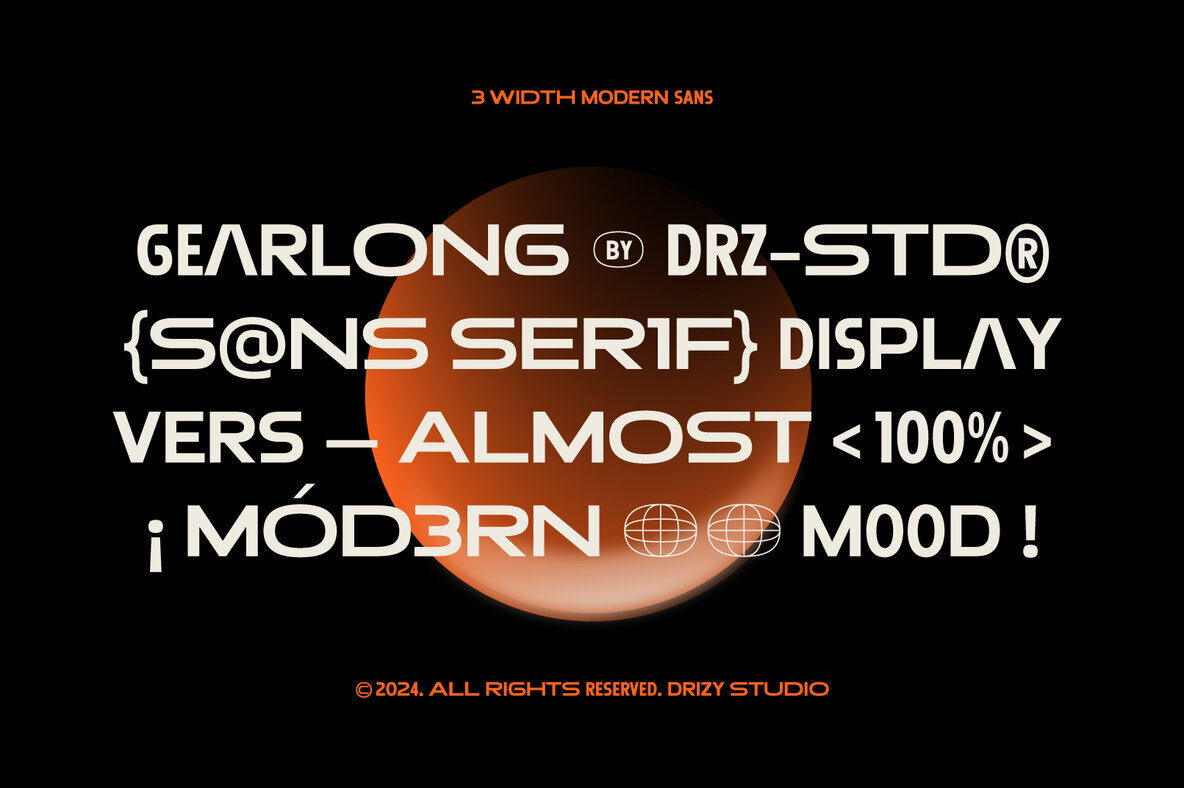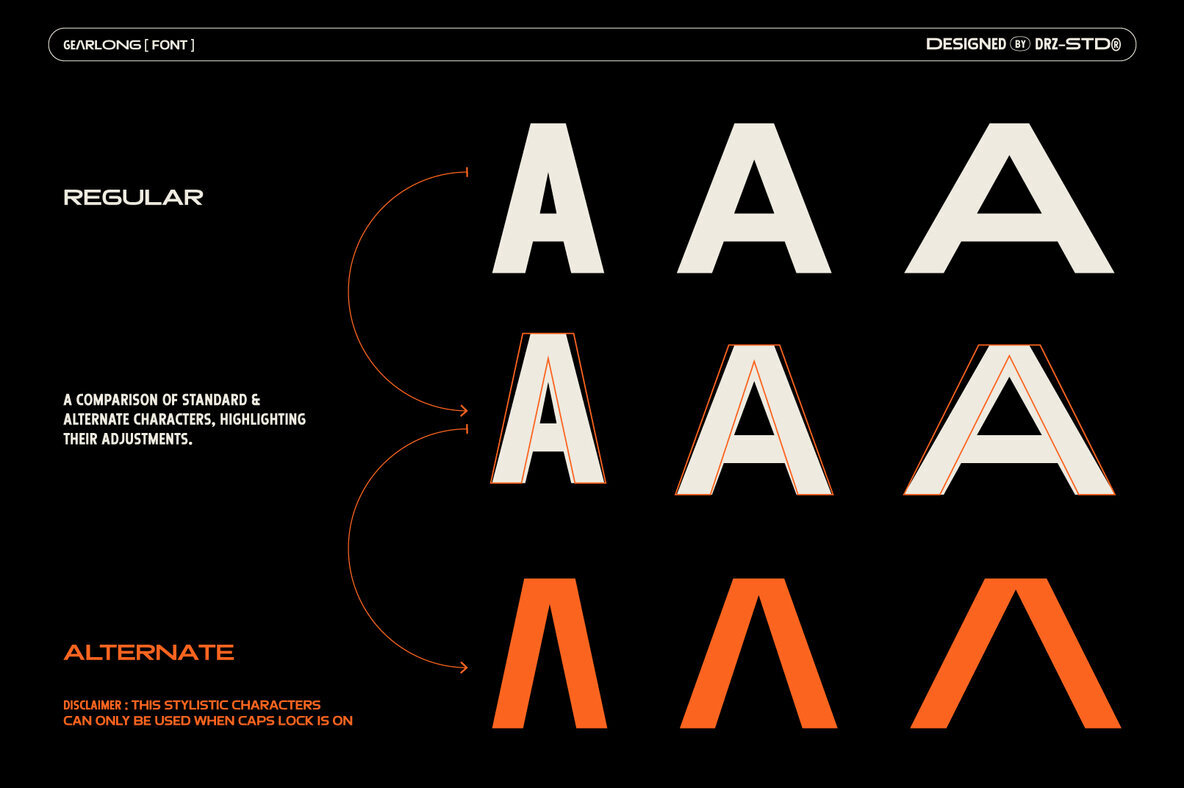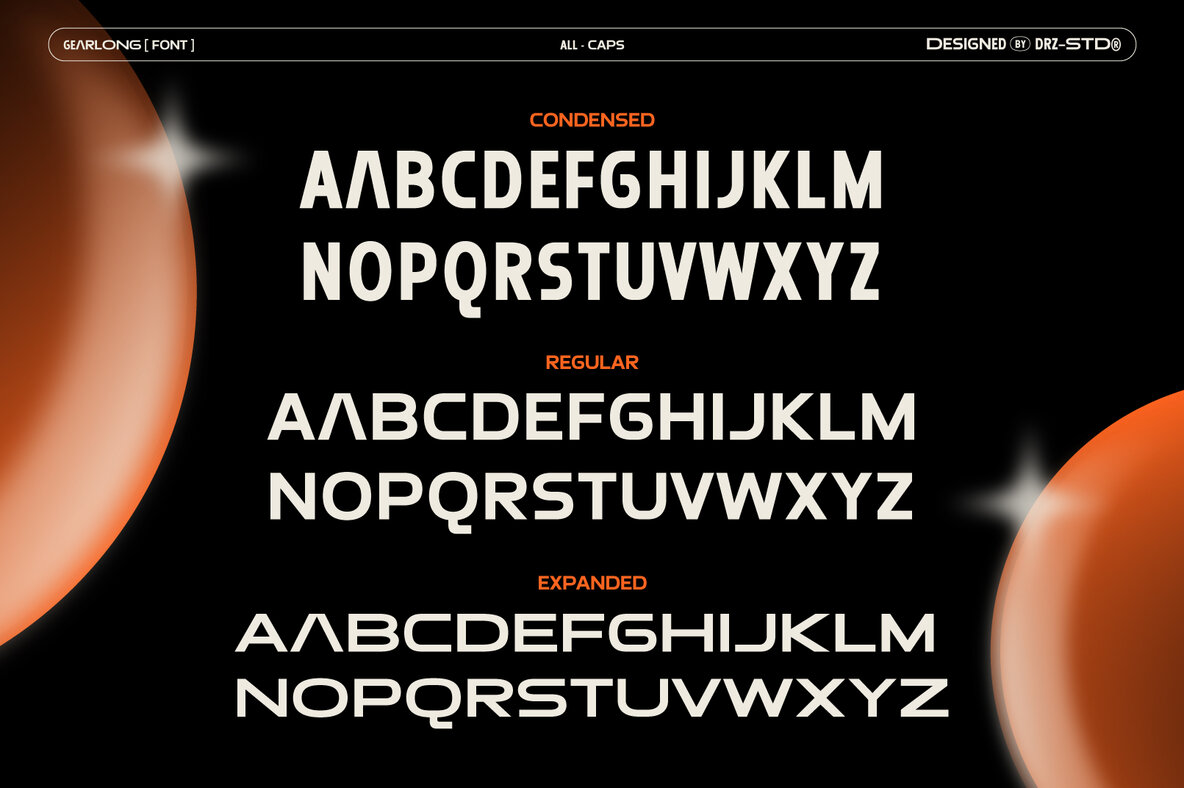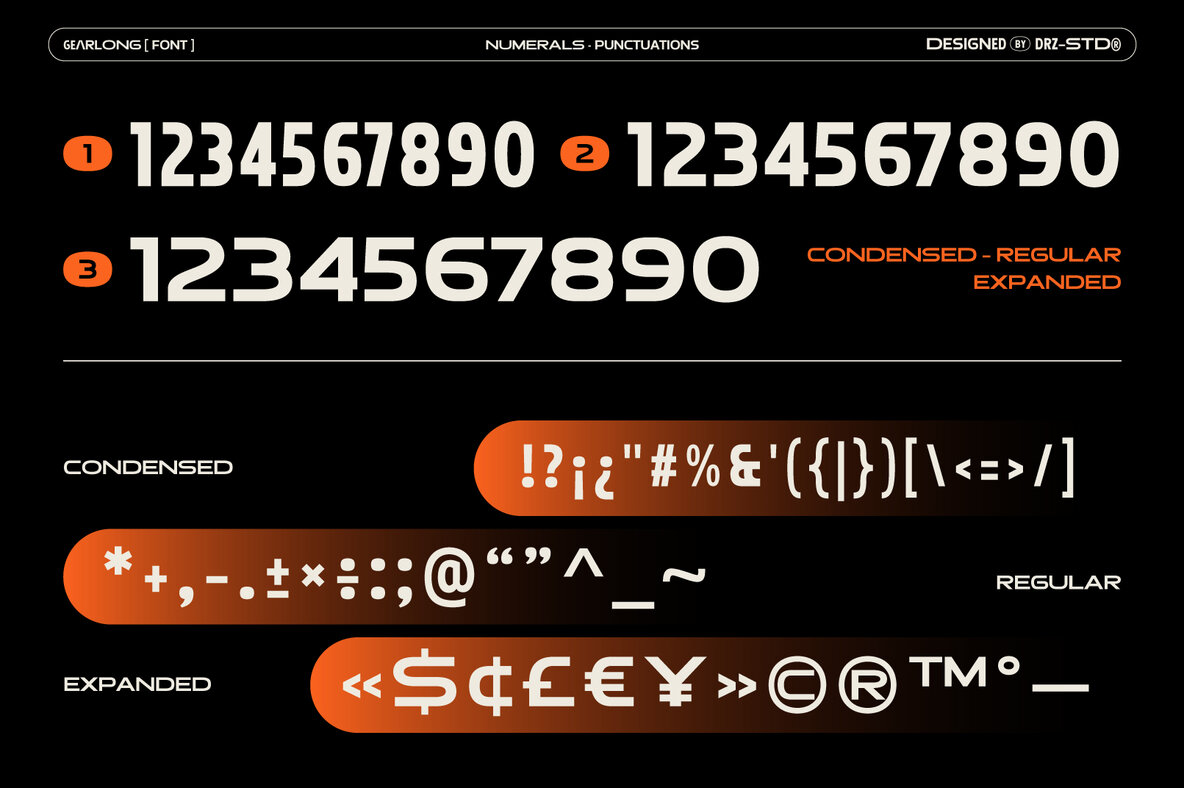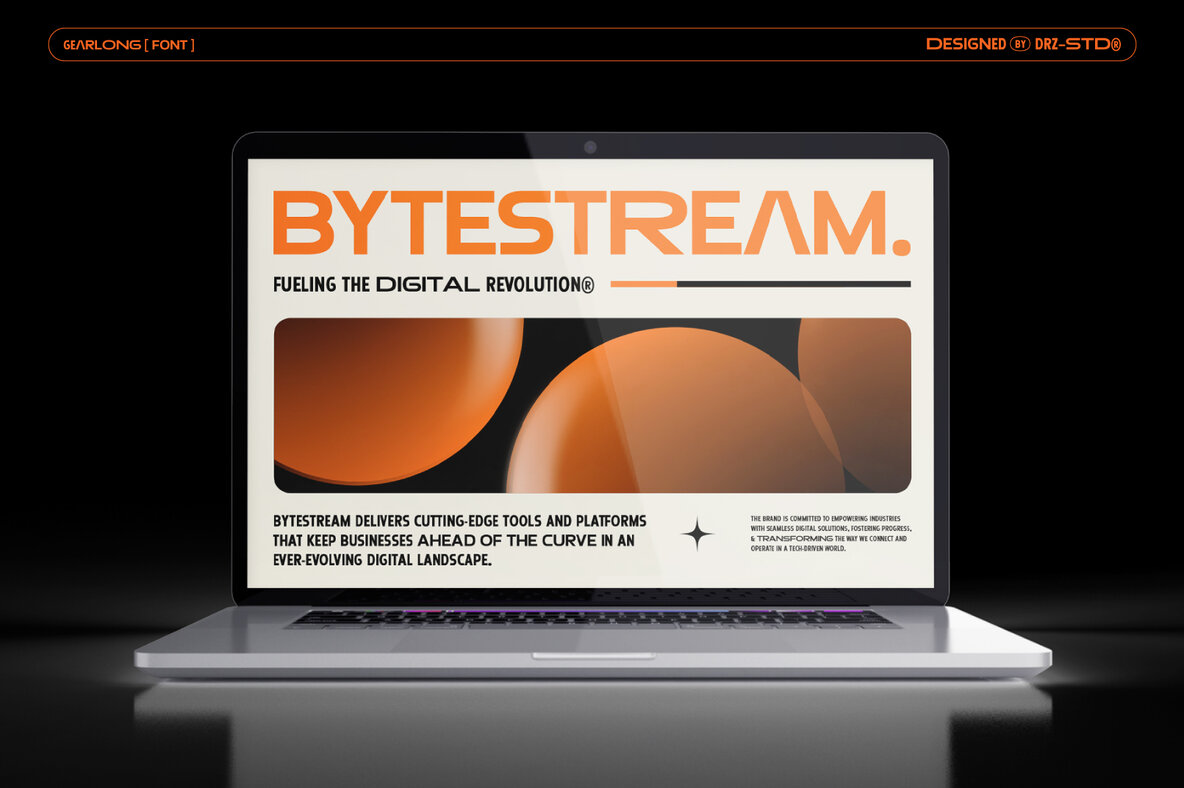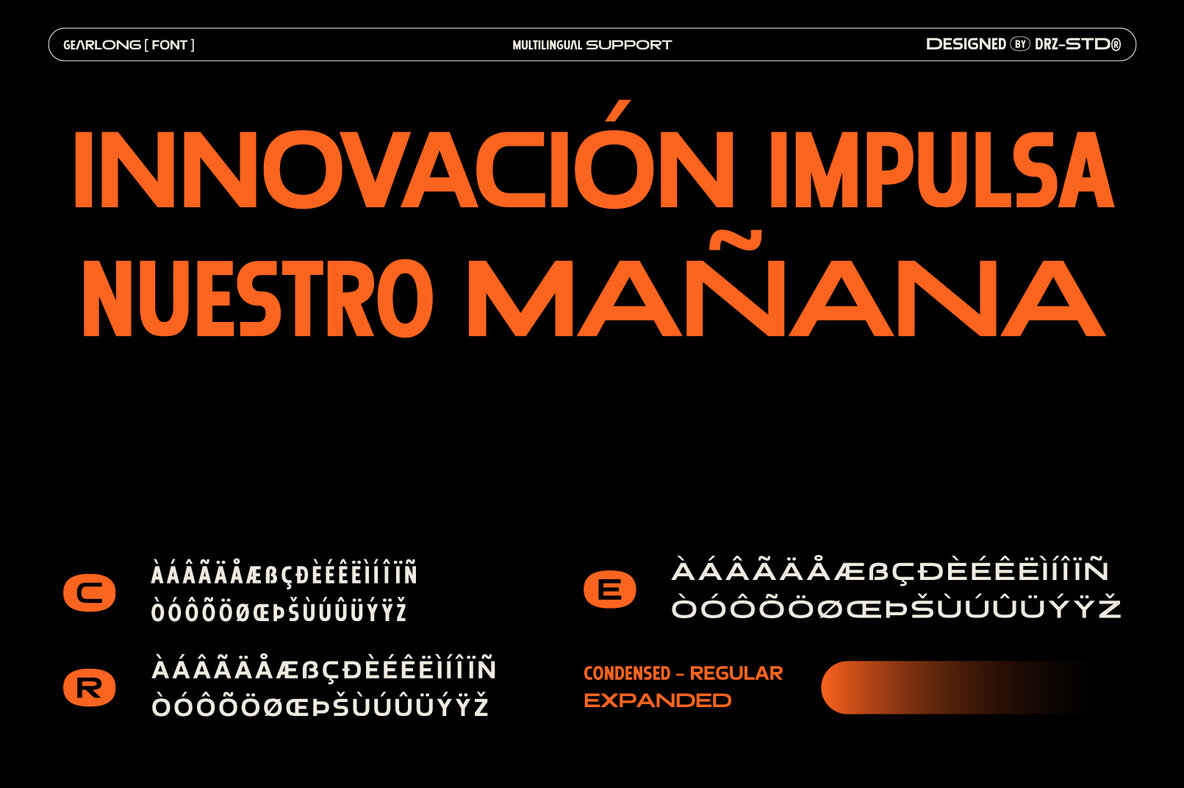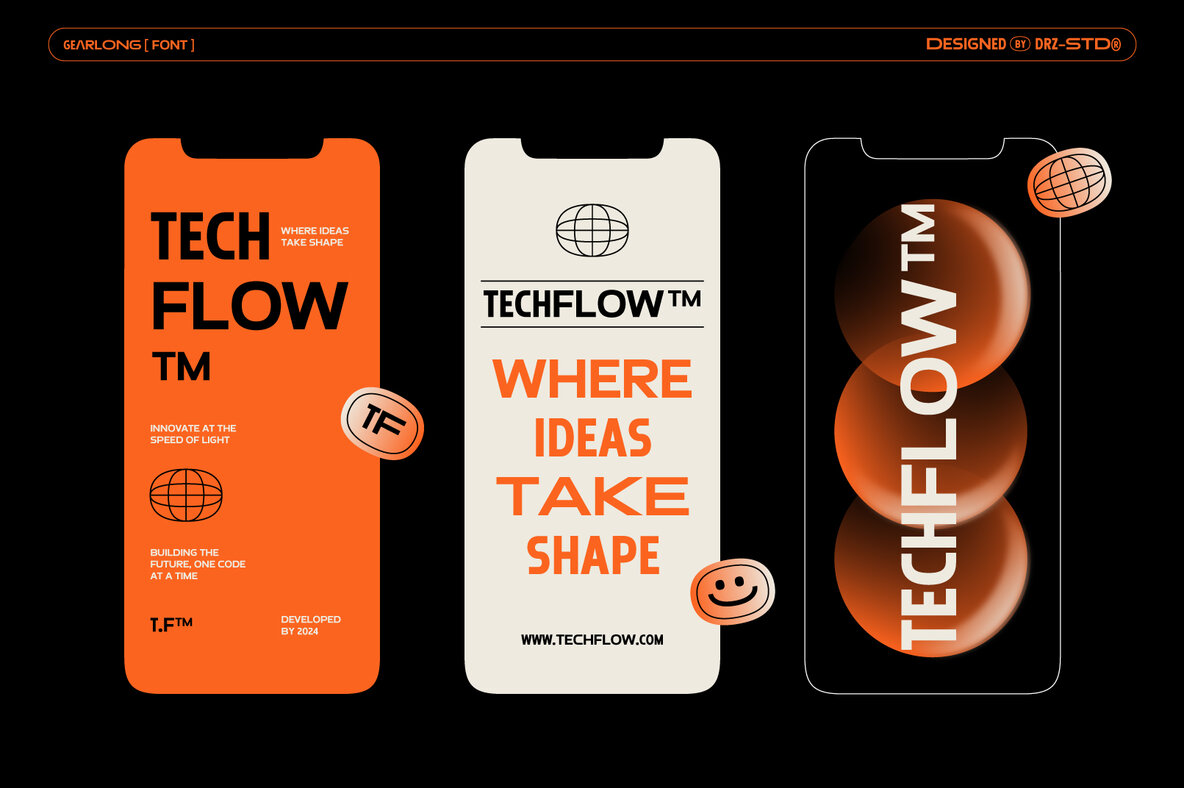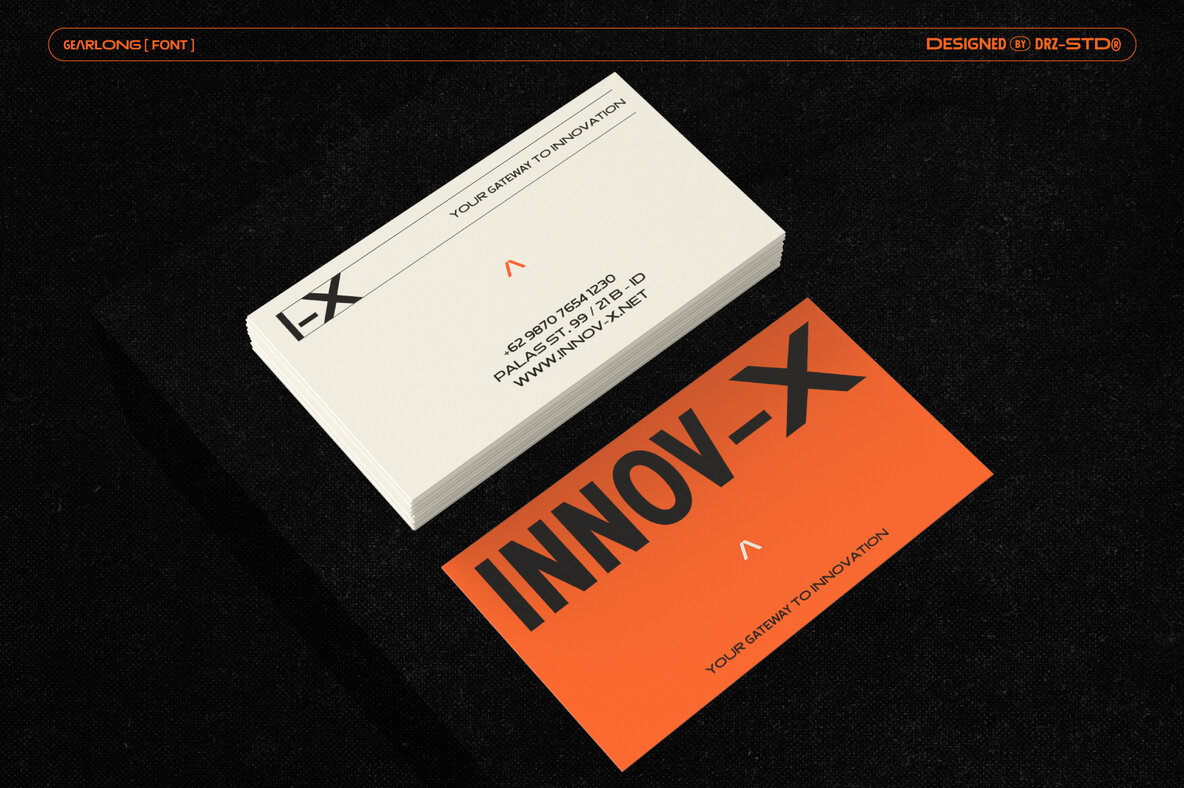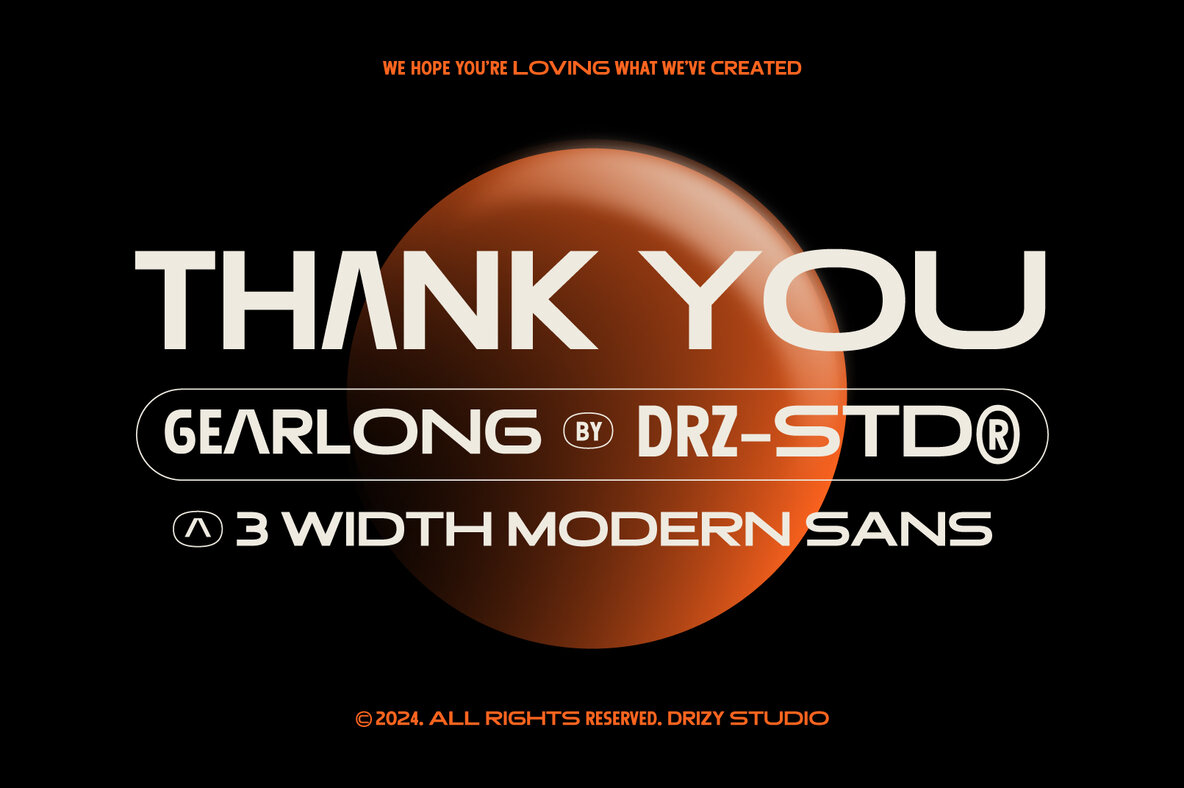
Gearlong Font
Gearlong is a versatile modern sans serif font, designed with clean lines and a minimalistic style. Offering three unique widths, this typeface provides flexibility to meet a variety of design requirements, from bold headlines to more delicate body text. Its geometric structure and balanced proportions make Gearlong ideal for UI/UX projects, visual identities, and modern branding, where clarity and sophistication are key.
Perfect for crafting logos, websites, and mobile applications, Gearlong ensures your design communicates with style and precision. The font features an all-caps character set, punctuation, numbers, and supports multiple languages. Additionally, it offers alternate versions of the letter "A" to further expand your creative options, making it suitable for designers seeking both a professional and approachable font choice.